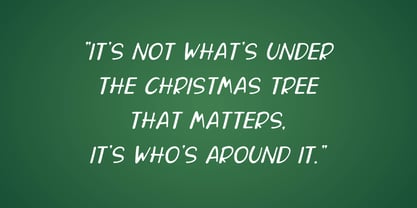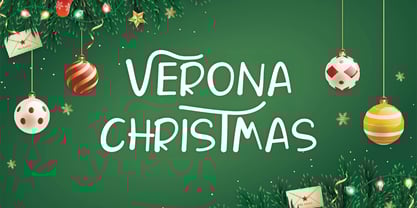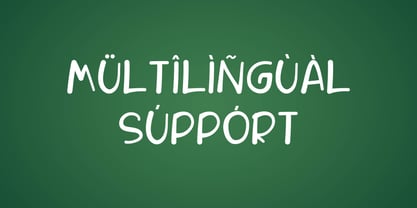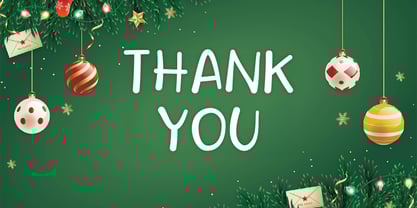
Verona Christmas
by Artiveko
The Verona Christmas Font Family was designed by Diwan Font Team and published by Artiveko. Verona Christmas contains 2 styles and family package options.
Verona Christmas is a joyful handwritten font created to capture the warmth, coziness, and happiness of the holiday season. With its natural handwritten strokes, soft curves, and playful rhythm, Verona Christmas brings a friendly and heartwarming feel to any festive design. Perfect for Christmas cards, gift tags, packaging, holiday posters, social media posts, invitations, crafts, and seasonal branding, this font adds a personal and cheerful touch that feels both cozy and authentic. Its handwritten character makes every message feel more intimate and full of holiday spirit. Verona Christmas includes uppercase and lowercase letters, numerals, punctuation, multilingual support, and seasonal alternates to give designers flexibility for a wide range of Christmas-themed projects. Celebrate the season with Verona Christmas — a handwritten Christmas font designed to spread warmth, joy, and festive magic through beautiful typography.